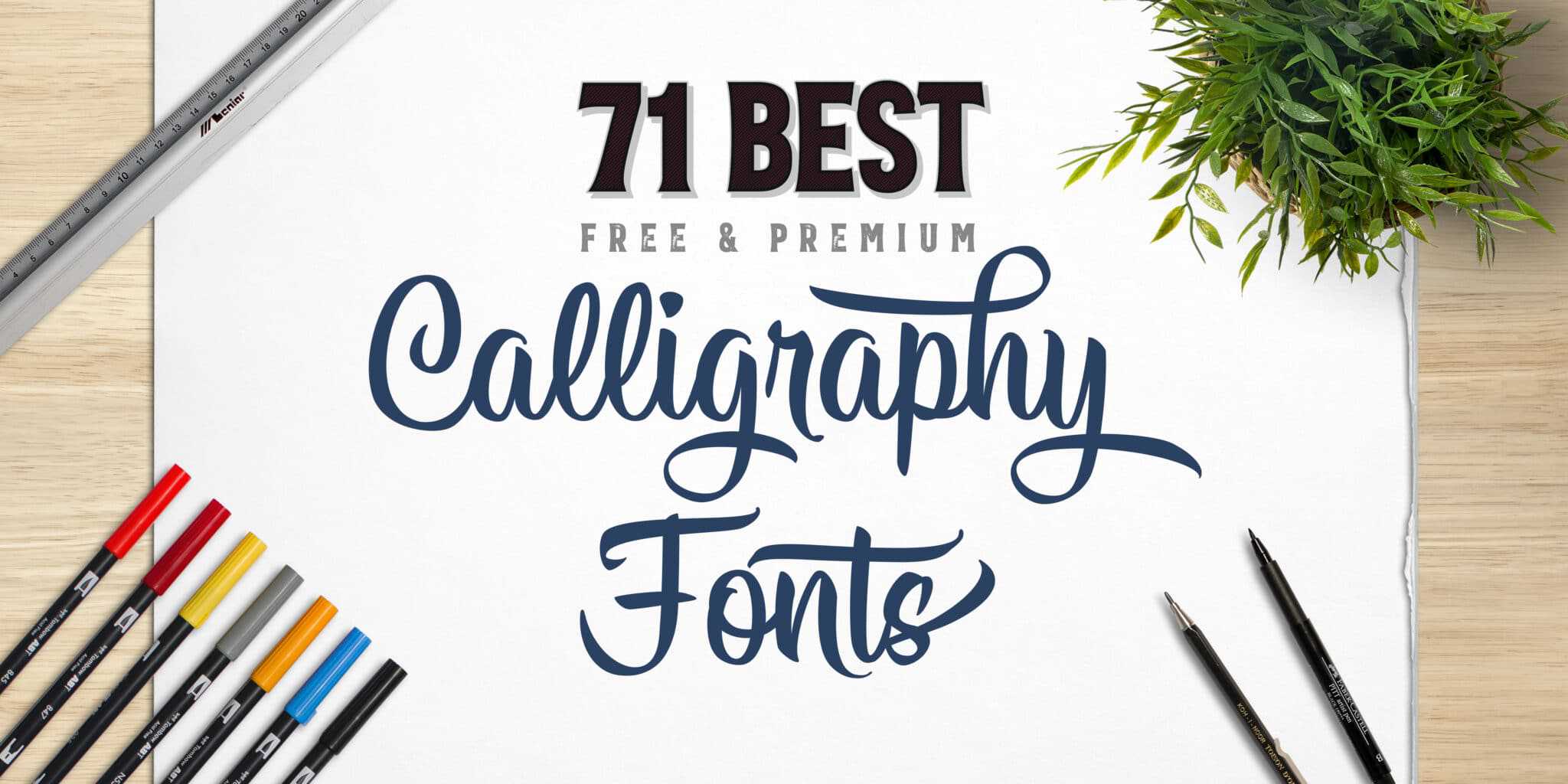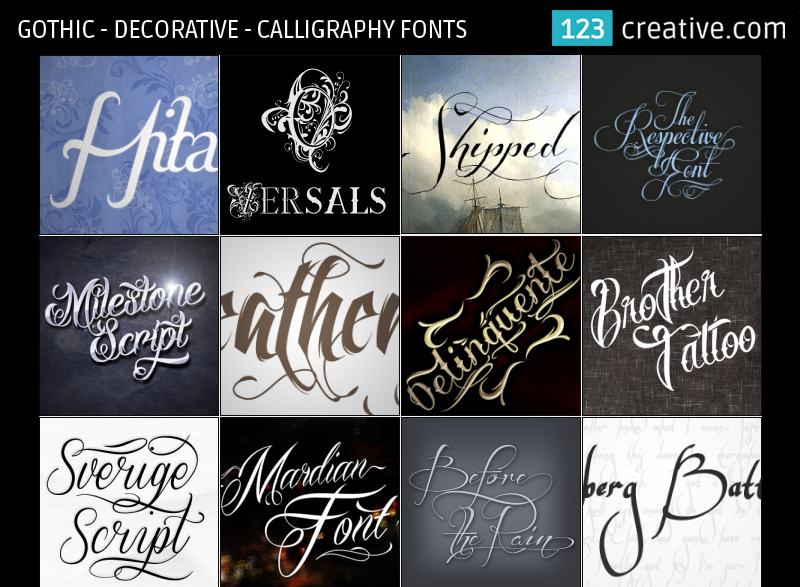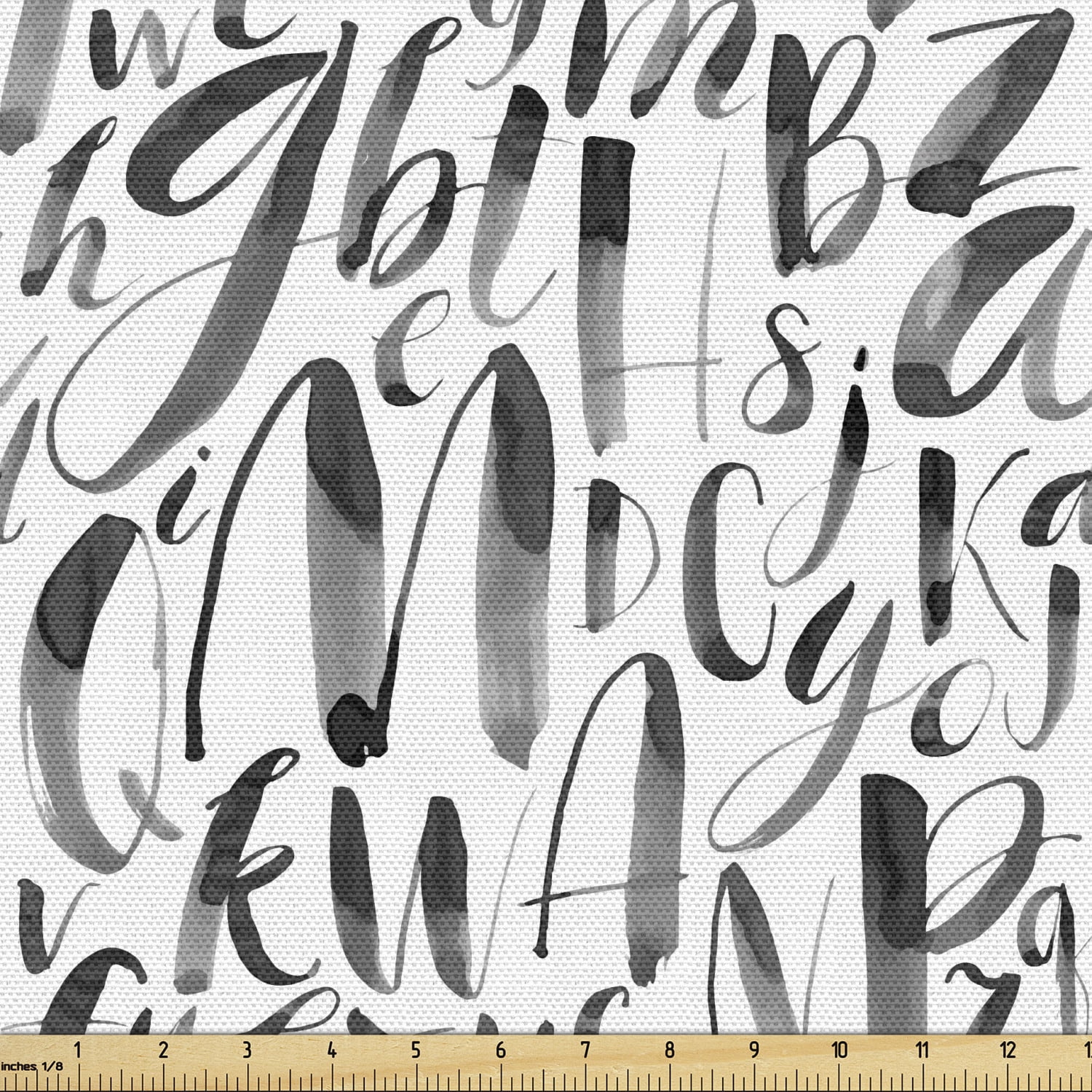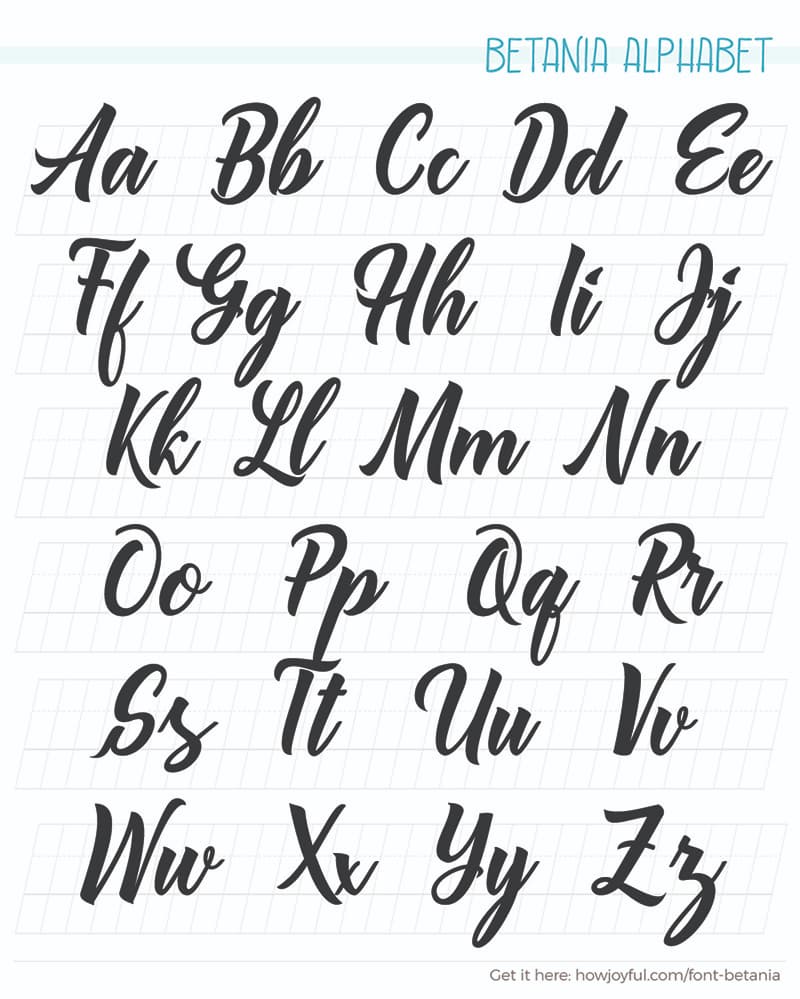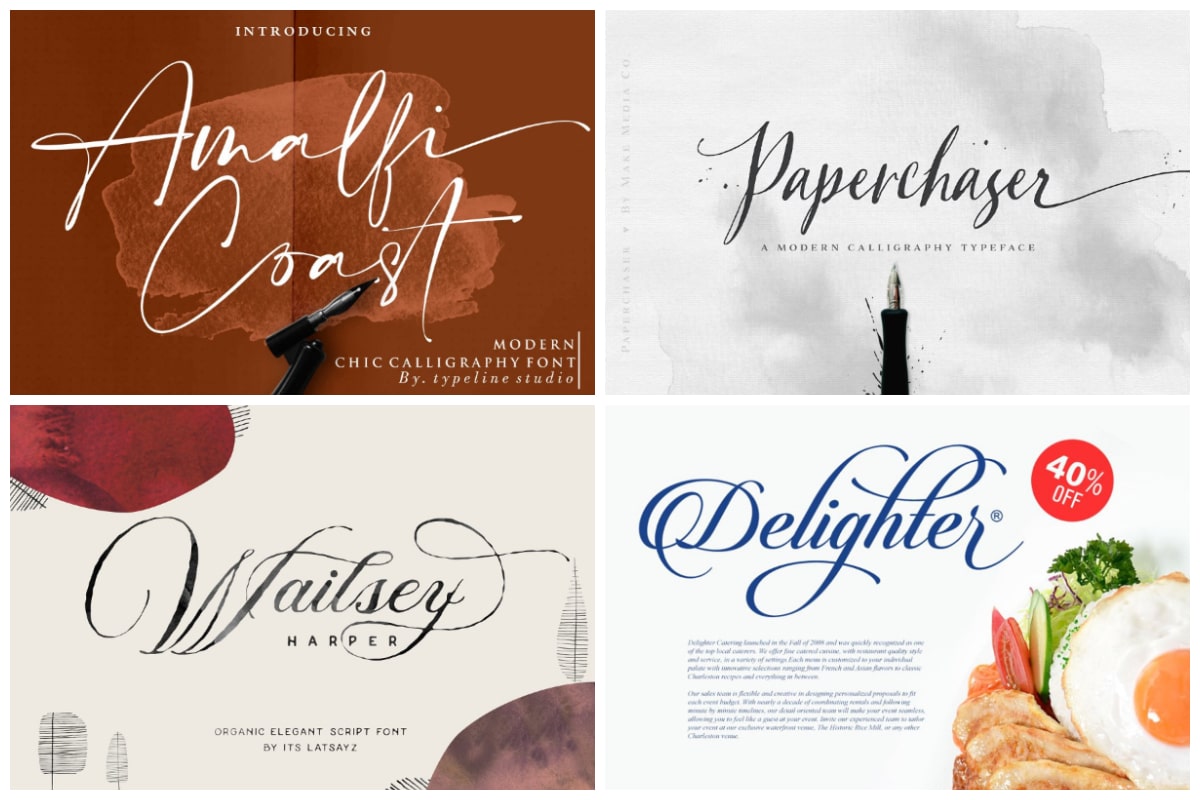
It also comes with a web font version for online use. Melinda Script is a beautiful and interesting calligraphy handwriting font.
Looking for Gothic Decorative fonts.
Calligraphy decorative fonts style. Note that is a font isnt showing for you if you just see plain square boxes or question marks then its because your browser doesnt quite support all of these fonts yet. Calligraphy Fonts Calligraphy is an artistic writing style where the pressure is varied to create thick and thin lines all in a single stroke. In this font script there are many alternative choices of characters.
The writing is readable but is usually extravagant and embellished with flourishes. Baritta Calligraphy Font with a feminimst calligraphy style decorative characters. Swashes and stylish alternates are often a big part of calligraphy fonts.
Lovers of beautiful calligraphy and type will especially appreciate this elegant font family. Cosmodrome is a script calligraphy style font thats most suitable for designing book covers posters music album covers and much more. Whether youre looking for Cricut fonts fonts for invitations or something elegant for your next design project this aesthetic could be perfect.
You can see from scratches that give a realistic and modern style. 19 bonus alternates are included for maximum control. With expertly balanced letters Encore is perfect for creating quick logos.
Calligraphy fonts are widely used in wedding event invitations original logo design religious art films TV etc. The stylish decorative design of the font will give a Victorian-era look to your designs as well. Click to find the best 121 free fonts in the Gothic Decorative style.
Estylle Madison Calligraphy Font. The font is perfect for designing vintage-themed posters flyers and even business cards. LHF Encore by John Davis.
The height of calligraphy was reached in the middle age where monks developed the narrow writing style called gothic allowing more words to fit on a single line as paper was expensive at the time. Burgues Script created by Alejandro Paul is a typical font family of calligraphy style. Calligraphy is an ancient writing technique using flat edged pens to create artistic lettering using thick and thin lines depending on the direction of the stroke.
Chinese Jpn Arabic Mexican Roman Greek Russian Various. Font looks sweet and full of the best characters. Calligraphy is an aesthetic composing style where the weight is differed to make thick and dainty lines all in a solitary stroke.
Calligraphy fonts are more artistic than the average font often using a script style to emulate the look of handwriting. Goliath is another unique retro tattoo style font that also comes in 4 different styles. LHF Encore lends itself to designs requiring a formal or professional appearance.